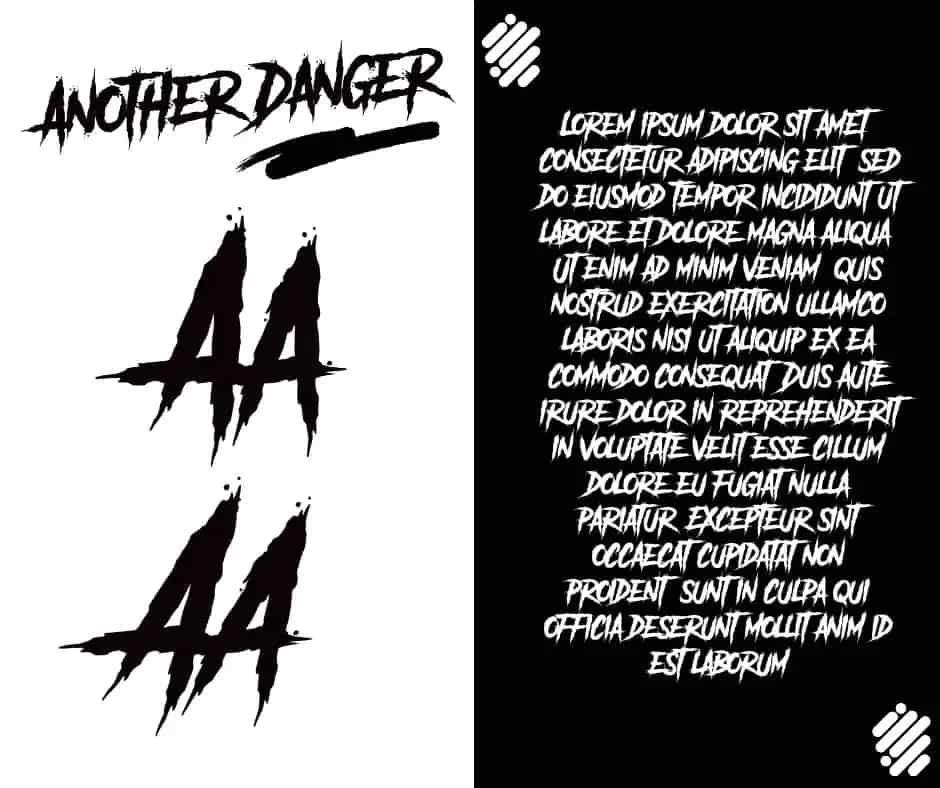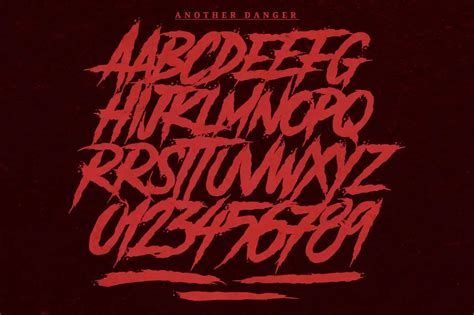
Another Danger Font
Another Danger Font - New fonts | top fonts | submit a font | font designers. With unruly inks delivered to every glyph produces the enigma to it. Bring in the hardcore vibe,. Web another danger font is a versatile and unique typeface that can add danger, mystery, and retro style to any design project. Web another danger is a free font for personal use created by the branded quotes. Its unruly inks and jagged edges create an enigma. The another danger font has been downloaded 50,491 times. Web download the another danger font by the branded quotes. The kind of typeface that proves its usefulness from time to time. Another danger is a fancy type font that can be used on any device such as pc, mac, linux, ios.
Web another danger font is a versatile and unique typeface that can add danger, mystery, and retro style to any design project. Its unruly inks and jagged edges create an enigma. With unruly inks delivered to every glyph produces the enigma to it. The another danger font has been downloaded 50,491 times. Web download the another danger font by the branded quotes. Bring in the hardcore vibe,. Another danger is a fancy type font that can be used on any device such as pc, mac, linux, ios. The kind of typeface that proves its usefulness from time to time. New fonts | top fonts | submit a font | font designers. Web another danger is a free font for personal use created by the branded quotes.
Web another danger font is a versatile and unique typeface that can add danger, mystery, and retro style to any design project. The another danger font has been downloaded 50,491 times. Its unruly inks and jagged edges create an enigma. New fonts | top fonts | submit a font | font designers. With unruly inks delivered to every glyph produces the enigma to it. Web another danger is a free font for personal use created by the branded quotes. Another danger is a fancy type font that can be used on any device such as pc, mac, linux, ios. The kind of typeface that proves its usefulness from time to time. Web download the another danger font by the branded quotes. Bring in the hardcore vibe,.
Another Danger Font
Bring in the hardcore vibe,. The kind of typeface that proves its usefulness from time to time. Web another danger is a free font for personal use created by the branded quotes. Its unruly inks and jagged edges create an enigma. Web another danger font is a versatile and unique typeface that can add danger, mystery, and retro style to.
Another Danger Font
Web another danger font is a versatile and unique typeface that can add danger, mystery, and retro style to any design project. Bring in the hardcore vibe,. Web another danger is a free font for personal use created by the branded quotes. The another danger font has been downloaded 50,491 times. With unruly inks delivered to every glyph produces the.
Web download the another danger font by the branded quotes. With unruly inks delivered to every glyph produces the enigma to it. The another danger font has been downloaded 50,491 times. Web another danger font is a versatile and unique typeface that can add danger, mystery, and retro style to any design project. Bring in the hardcore vibe,.
Another Danger font by The Branded Quotes FontRiver
Another danger is a fancy type font that can be used on any device such as pc, mac, linux, ios. With unruly inks delivered to every glyph produces the enigma to it. Web another danger font is a versatile and unique typeface that can add danger, mystery, and retro style to any design project. The another danger font has been.
Bring in the hardcore vibe,. Web another danger is a free font for personal use created by the branded quotes. Web another danger font is a versatile and unique typeface that can add danger, mystery, and retro style to any design project. Another danger is a fancy type font that can be used on any device such as pc, mac,.
Another Danger Font Fonts Hut
Web another danger is a free font for personal use created by the branded quotes. The kind of typeface that proves its usefulness from time to time. Its unruly inks and jagged edges create an enigma. With unruly inks delivered to every glyph produces the enigma to it. Another danger is a fancy type font that can be used on.
Another Danger Font Dafont Free
New fonts | top fonts | submit a font | font designers. With unruly inks delivered to every glyph produces the enigma to it. Web another danger is a free font for personal use created by the branded quotes. Web download the another danger font by the branded quotes. The another danger font has been downloaded 50,491 times.
Another Danger Font Download
Another danger is a fancy type font that can be used on any device such as pc, mac, linux, ios. Web another danger font is a versatile and unique typeface that can add danger, mystery, and retro style to any design project. With unruly inks delivered to every glyph produces the enigma to it. Web download the another danger font.
Another Danger Font Fontzaa Fonts Free Download
Web download the another danger font by the branded quotes. With unruly inks delivered to every glyph produces the enigma to it. The kind of typeface that proves its usefulness from time to time. Its unruly inks and jagged edges create an enigma. The another danger font has been downloaded 50,491 times.
Another Danger Font Download Free Fonts Lab
New fonts | top fonts | submit a font | font designers. The another danger font has been downloaded 50,491 times. Its unruly inks and jagged edges create an enigma. Web another danger font is a versatile and unique typeface that can add danger, mystery, and retro style to any design project. Bring in the hardcore vibe,.
Another danger is a fancy type font that can be used on any device such as pc, mac, linux, ios. Its unruly inks and jagged edges create an enigma. Bring in the hardcore vibe,. Web another danger is a free font for personal use created by the branded quotes.